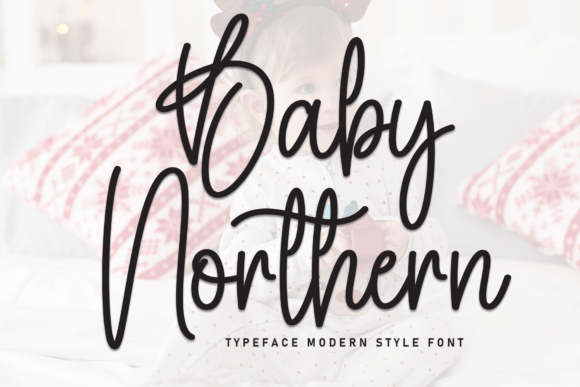
Baby Northern Font: A Joyful and Contemporary Handwritten Font
In the world of typography, fonts play a crucial role in conveying emotions and setting the tone for various designs. When it comes to creating visually appealing and heartwarming content, especially for baby-related products or holiday greetings, the right font can make all the difference. This is where the Baby Northern Font comes into play, bringing a joyful, contemporary flair to handwritten fonts. With its tall, slightly playful lettering and dynamic baseline, Baby Northern is perfect for adding a warm, modern touch to baby apparel, holiday greetings, nursery prints, and more.
Characteristics of Baby Northern Font
Baby Northern Font is distinguished by its unique characteristics that set it apart from other handwritten fonts. Its tall lettering gives it an elegant and sophisticated look, while the slightly playful nature of the font ensures it remains approachable and friendly. The dynamic baseline adds a sense of movement and energy, making the font perfect for designs that require a lively and vibrant feel.
- Tall Lettering: The font’s tall letters contribute to its refined and graceful appearance, making it suitable for designs that require a touch of sophistication.
- Playful Nature: The slight playfulness in the lettering ensures the font remains fun and engaging, perfect for baby-related products or nursery prints.
- Dynamic Baseline: The dynamic baseline of the font adds a lively feel, making it ideal for holiday greetings or any design that needs to convey joy and warmth.
Use Cases for Baby Northern Font
The versatility of Baby Northern Font makes it suitable for a wide range of applications. Here are some of the ideal use cases for this beautiful font:
- Baby Apparel: From onesies to baby blankets, the Baby Northern Font adds a cute and modern touch to any baby apparel, making it a favorite among parents and designers alike.
- Holiday Greetings: The playful and joyful nature of the font makes it perfect for holiday greetings, adding a warm and personal touch to your cards and invitations.
- Nursery Prints: For nursery decor, the Baby Northern Font offers a charming and contemporary option, making it easy to create personalized and adorable prints for little ones.
- Anything that Needs a Warm, Modern Touch: Beyond the mentioned applications, this font is versatile enough to be used in any design project that requires a friendly, modern aesthetic.
Typography Tips for Using Baby Northern Font
To make the most out of the Baby Northern Font, here are some typography tips to keep in mind:
- Pairing: Pair the Baby Northern Font with simpler fonts for body text to create a balanced design. Fonts with a sans-serif or minimalist style work well for this purpose.
- Color Choice: Opt for soft, pastel colors or bright, cheerful hues to complement the playful and joyful vibe of the font.
- Sizing: Experiment with different font sizes to create visual hierarchy. Using larger sizes for headings and smaller sizes for body text can enhance readability and visual appeal.
- Spacing: Pay attention to letter spacing and line height. Adjusting these can improve readability and ensure your design looks clean and uncluttered.
The Importance of Fonts in the Digital Era
In the digital era, fonts have become more than just a means of displaying text; they are a crucial element of design that can influence user experience and perception. The right font can make a website more readable, an advertisement more engaging, or a product label more appealing. With the vast array of fonts available today, designers have the opportunity to experiment and find the perfect match for their projects.
Baby Northern Font, with its unique blend of playfulness and modernity, is a valuable addition to any designer’s font library. Its ability to convey warmth and joy makes it an excellent choice for projects aimed at children or seeking to evoke a sense of happiness.
Baby Northern Font stands out as a joyful and contemporary handwritten font, ideal for designers looking to add a warm, modern touch to their creations. Its tall, slightly playful lettering and dynamic baseline make it versatile and suitable for a variety of applications, from baby apparel and holiday greetings to nursery prints. By understanding the characteristics of the font and following typography best practices, designers can effectively utilize Baby Northern Font to create visually appealing and emotionally resonant designs.